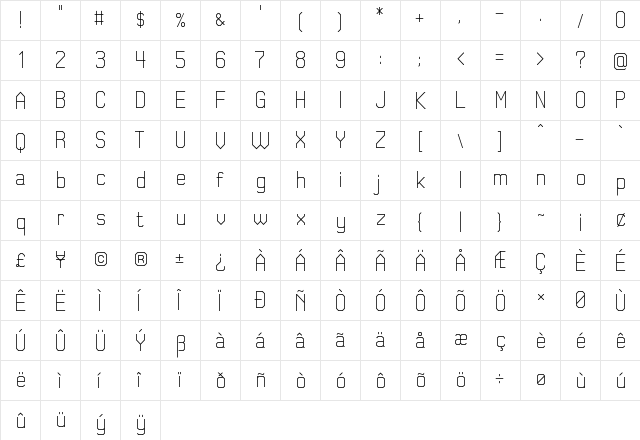
Cristina Light Regular
Design Context for Cristina Light Typeface
Cristina Light is a composed and adaptable typeface that performs quietly and consistently across a wide range of design contexts. Its slender proportions lend an understated elegance to any composition.
Pro Tip: Use Cristina Light in both headline and body roles to test its range before committing to a single application.